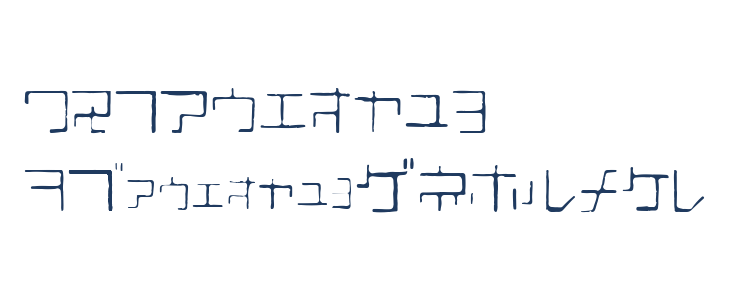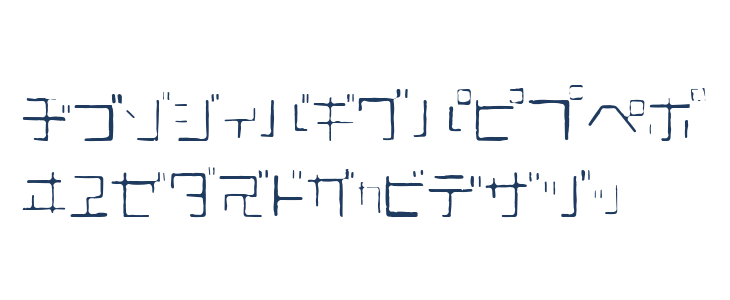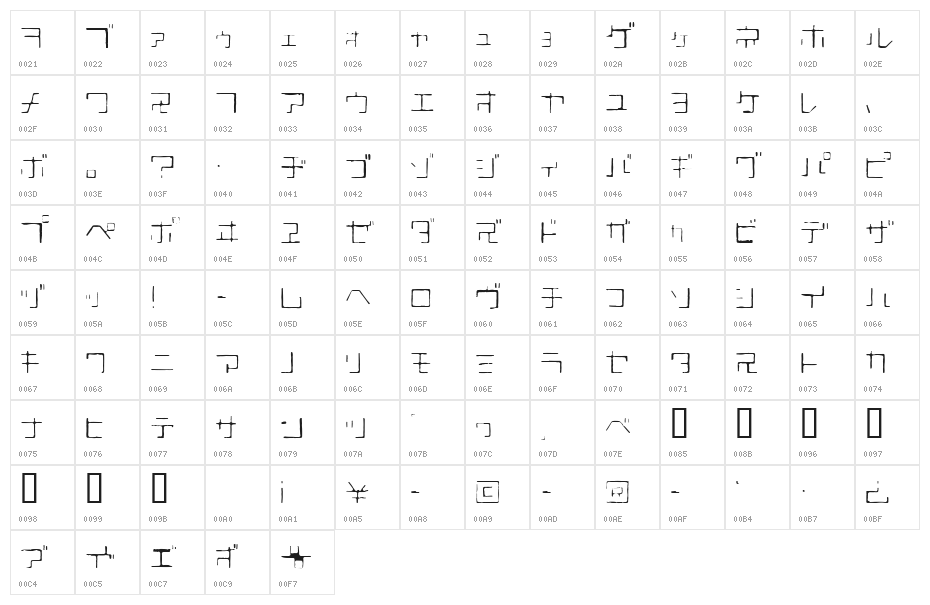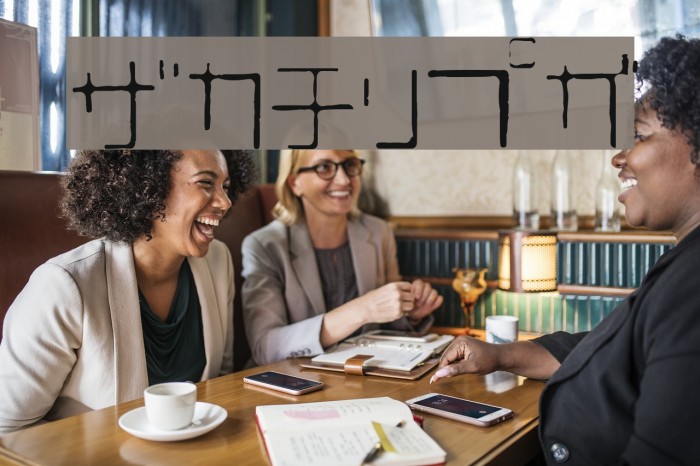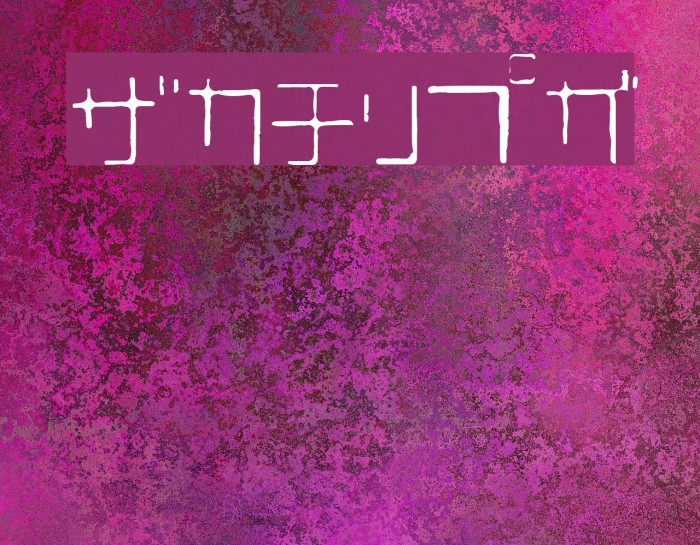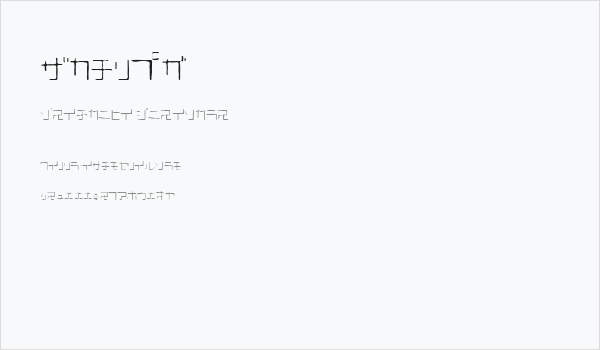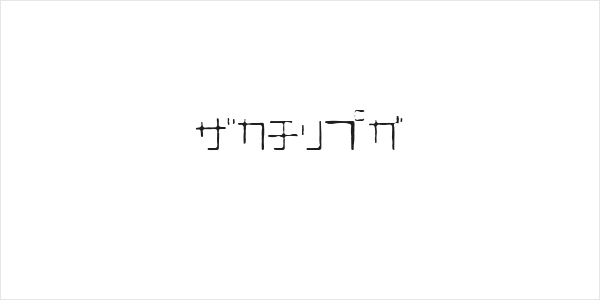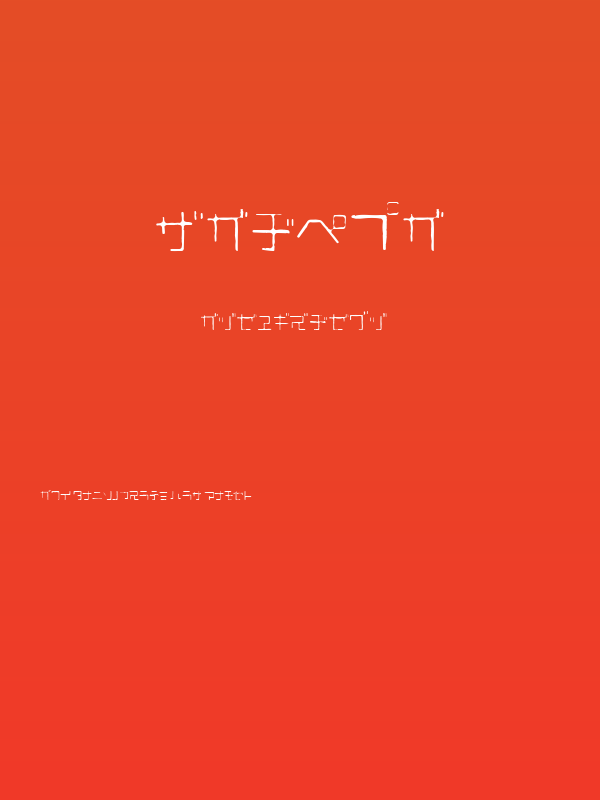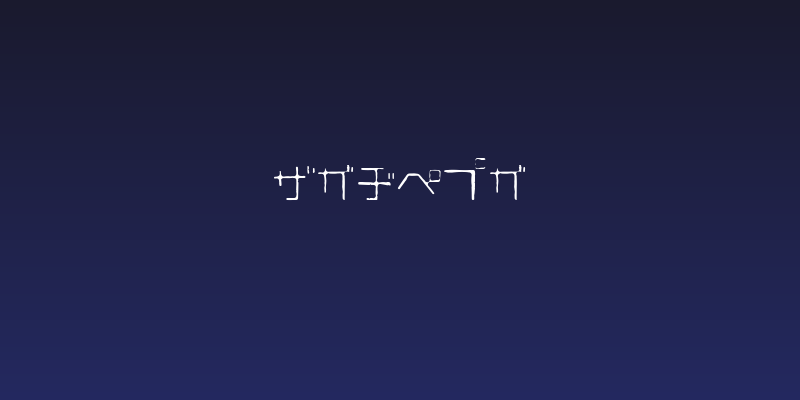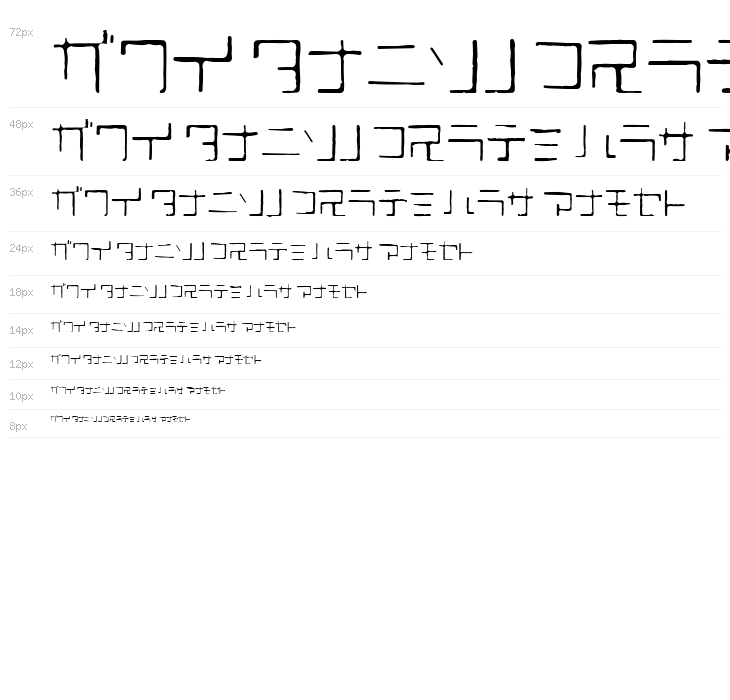
XtalKT Font
XtalKT Description
This font features a unique, abstract style that resembles a blend of geometric and calligraphic elements. The characters are composed of thin, uneven strokes that give it a hand-drawn appearance. The design includes a mix of straight lines and subtle curves, creating a dynamic and artistic look. The overall aesthetic is modern and unconventional, making it suitable for creative and artistic projects. The font's distinctiveness lies in its irregular shapes and the playful interaction between the strokes, which adds a sense of movement and fluidity.
| Overall Style | Modern, Artistic |
| Use Case | Logos, Posters, Creative Branding |
| Proposed Projects | Ideal for artistic designs, creative branding, posters, and modern art projects. |